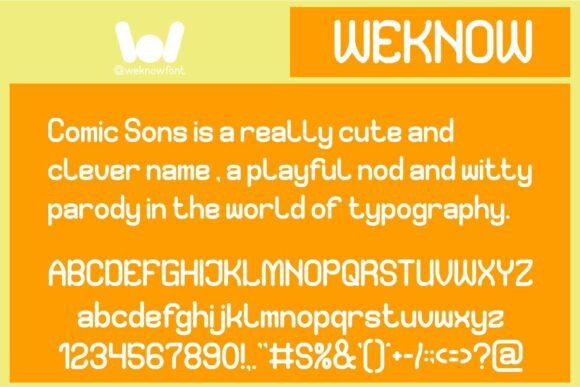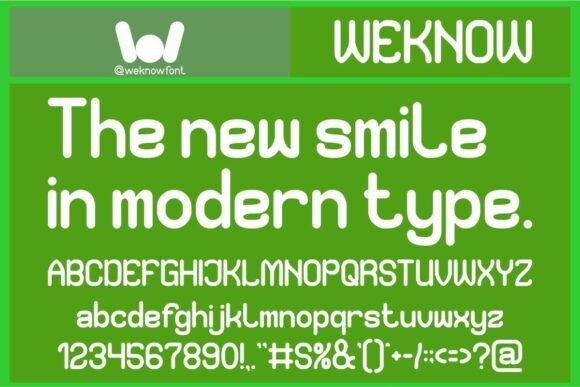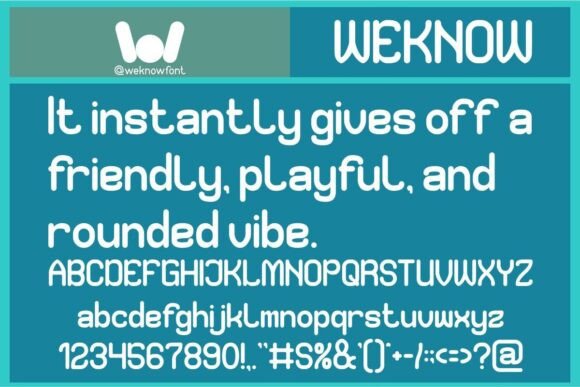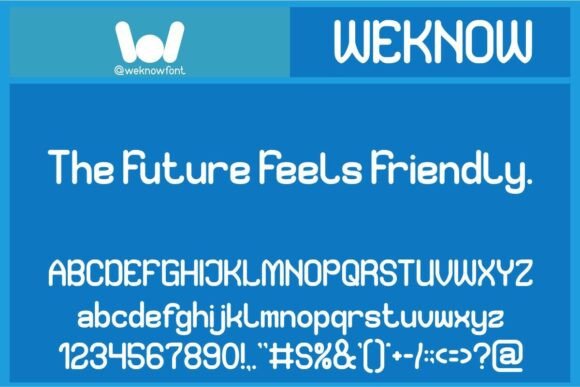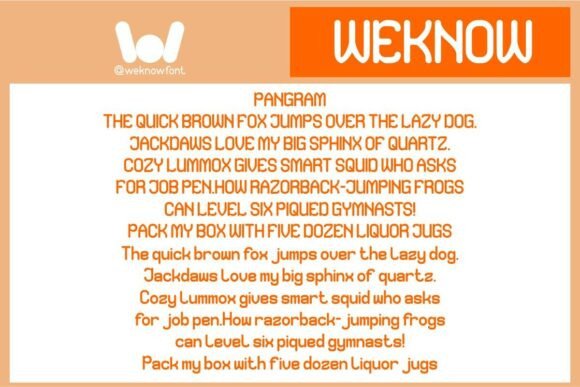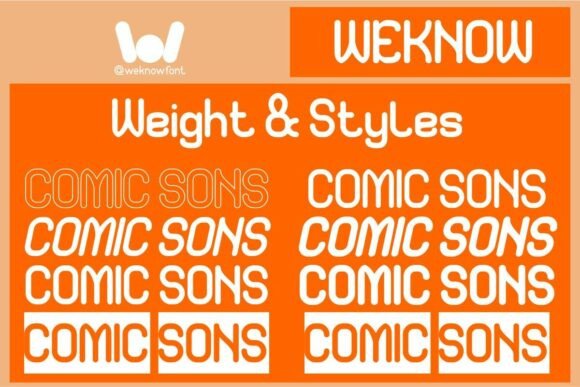
Introducing Comic Sans: The Ultimate Versatile Font for Creative Designs
Are you tired of using the same old fonts for your creative projects? Look no further than Comic Sans, a contemporary sans serif display font that brings a playful edge to your designs. With its unique blend of retro and futuristic elements, Comic Sans is perfect for a wide range of creative mediums, from crafting standout headlines to building corporate identities, designing apparel, and creating engaging content for media outlets.
The Characteristics of Comic Sans
Comic Sans is characterized by its smooth texture and distinctive roundness, which sets it apart from other fonts. Its animated style makes it ideal for YouTube and Instagram content, captivating websites, and more. The font’s versatility is unmatched, making it perfect for designers and crafters looking to add a unique touch to their creative designs.
Uses of Comic Sans
So, where can you use Comic Sans? The possibilities are endless! Here are some ideas to get you started:
- Headlines and Titles: Use Comic Sans to craft attention-grabbing headlines and titles that will make your content stand out.
- Corporate Identity: Create a unique and memorable brand identity with Comic Sans, perfect for logos, business cards, and more.
- Apparel Design: Add a playful touch to your apparel designs with Comic Sans, great for t-shirts, hoodies, and other clothing items.
- Media Outlets: Use Comic Sans to create engaging content for media outlets such as music, movies, games, magazines, books, and comics.
- Social Media: Add a pop of personality to your YouTube and Instagram content, captivating websites, and more.
Benefits of Using Comic Sans
So, why choose Comic Sans for your creative projects? Here are just a few benefits:
- Versatility: Comic Sans is a versatile font that can be used in a wide range of creative mediums.
- Playful Edge: Add a playful touch to your designs with Comic Sans’s unique and animated style.
- Retro-Futuristic Blend: Comic Sans’s blend of retro and futuristic elements makes it a standout font that’s sure to grab attention.
- Ease of Use: Comic Sans is easy to read and use, making it perfect for designers and crafters of all skill levels.
Tips for Using Comic Sans
Here are a few tips for using Comic Sans in your creative projects:
- Experiment with Sizes: Try using Comic Sans in different sizes to create visual interest and hierarchy in your designs.
- Pair with Other Fonts: Pair Comic Sans with other fonts to create a unique and memorable design.
- Use in Moderation: While Comic Sans is a fun and playful font, use it in moderation to avoid overwhelming your designs.
In conclusion, Comic Sans is a versatile and contemporary sans serif display font that’s perfect for designers and crafters looking to add a unique touch to their creative designs. With its smooth texture, distinctive roundness, and animated style, Comic Sans is ideal for a wide range of creative mediums. Whether you’re crafting a standout headline, building a corporate identity, designing apparel, or creating engaging content for media outlets, Comic Sans is the perfect choice.